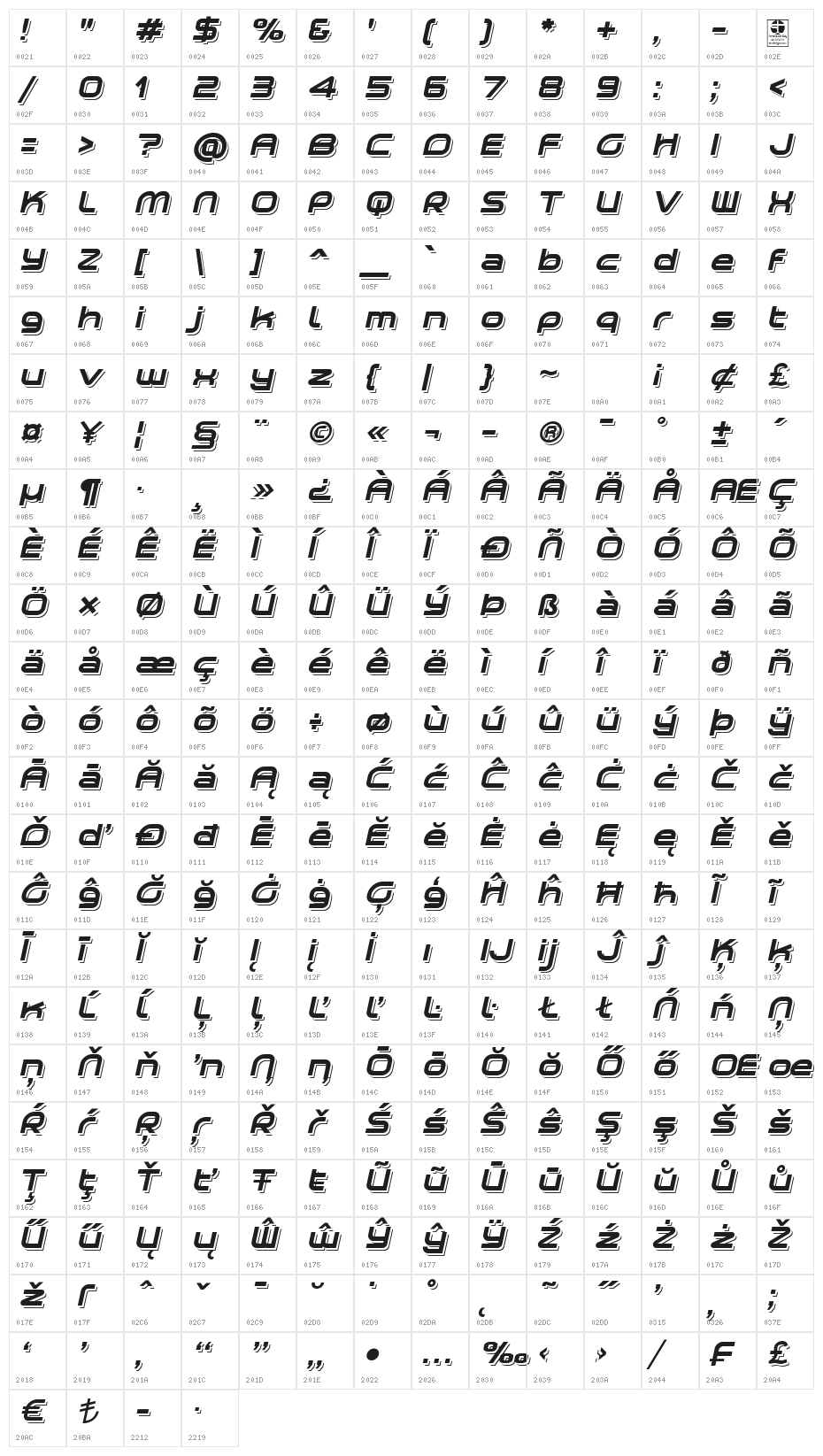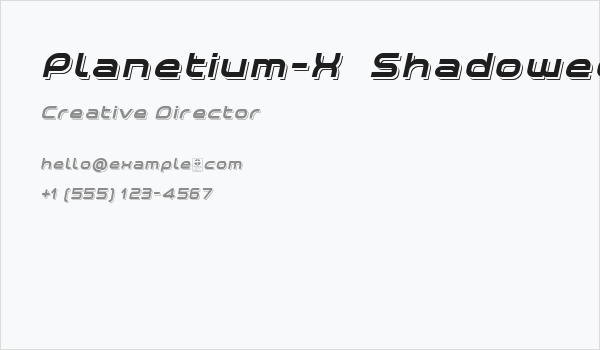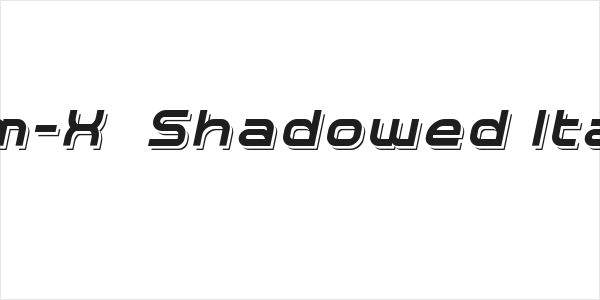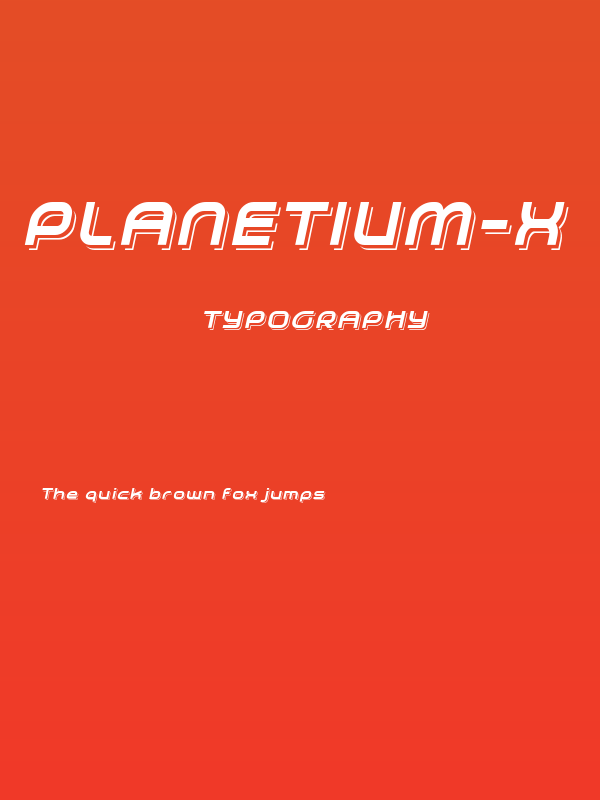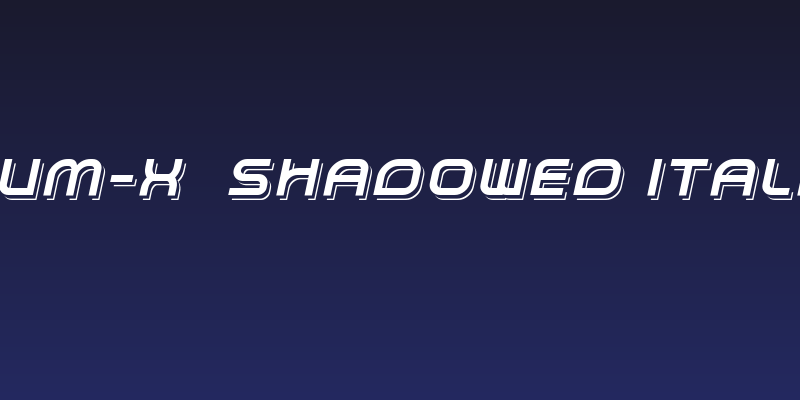
Planetium-X Shadowed Italic Demo Font
Planetium-X Shadowed Italic Demo Description
This font features a futuristic and dynamic design with a shadowed effect that adds depth and dimension to each character. The italicized style gives it a sense of motion and speed, making it ideal for projects that require a modern and energetic look. The uppercase and lowercase letters maintain a consistent style, with rounded edges and a slight slant that enhances readability. The numerals and special characters are designed to match the overall aesthetic, ensuring a cohesive appearance across all text elements. The font's unique shadowing and italicization make it stand out, perfect for creative and bold designs.
Proposed ProjectsIdeal for sci-fi themed posters, video game titles, technology branding, and modern advertising campaigns.